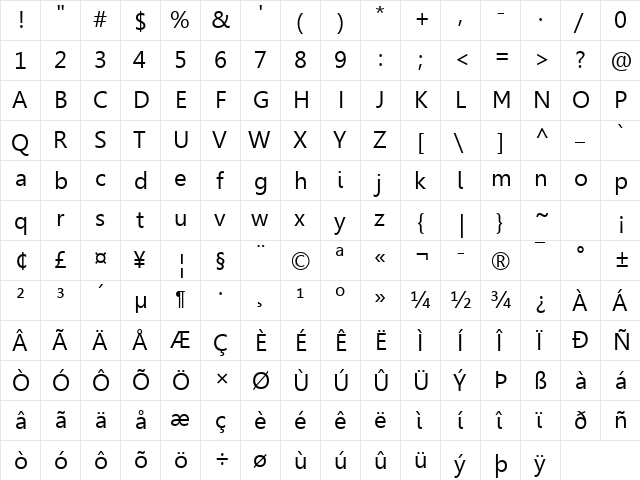
Leelawadee Regular
Design Context for Leelawadee Typeface
Leelawadee takes a measured approach to typography — its balanced proportions and neutral character make it a reliable workhorse for both digital and print work.
Pro Tip: Use Leelawadee in both headline and body roles to test its range before committing to a single application.